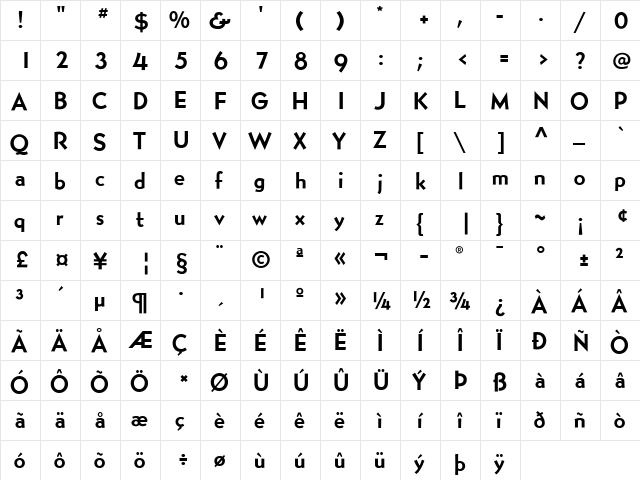
BernhardGothicSG Heavy
Design Context for BernhardGothicSG Typeface
BernhardGothicSG has the quiet confidence of well-executed sans-serif typography: versatile, unobtrusive, and dependable at any size.
Font Pairing: Works well alongside a characterful serif or display font that can carry the expressive load while BernhardGothicSG handles the functional copy.
Pro Tip: Use BernhardGothicSG for UI labels, navigation, and short-form body copy where clean legibility is the priority.